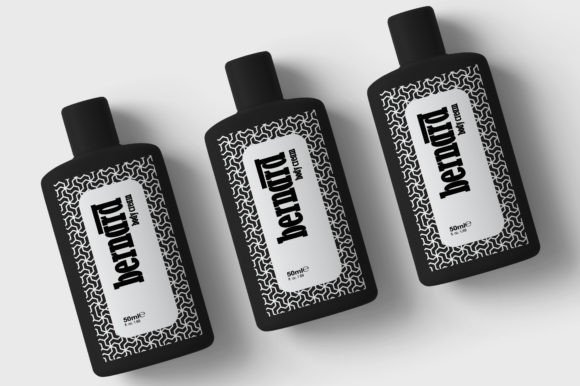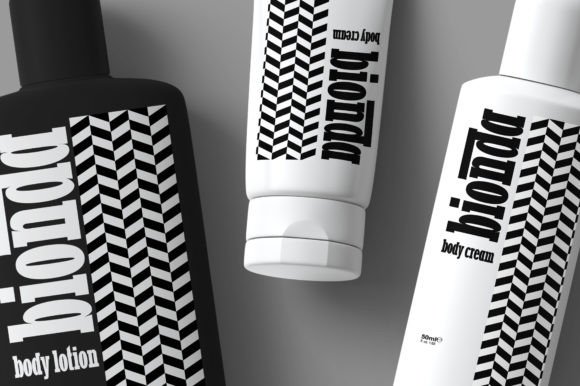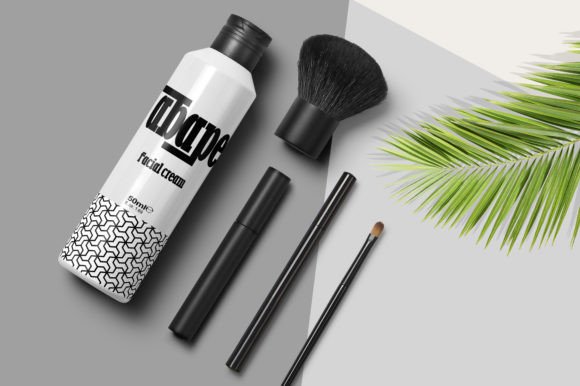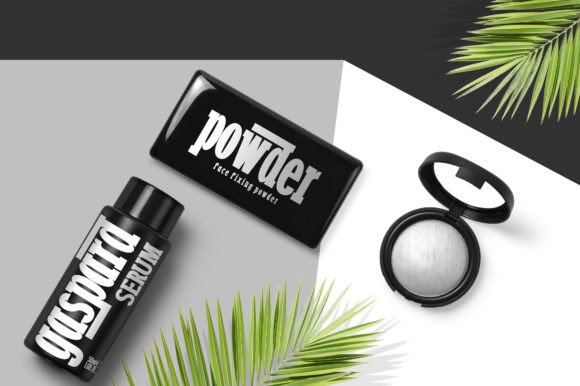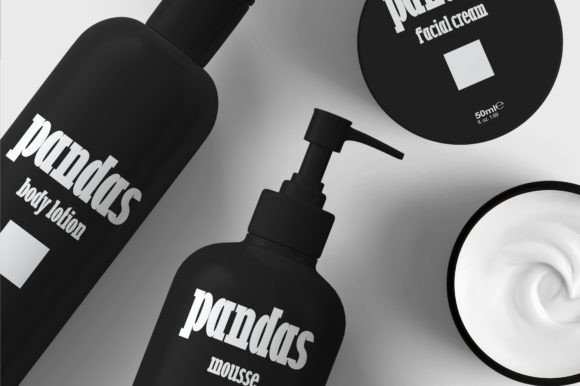
Bernard
Bernard: A Wonderful Compressed Slab Serif Font
Bernard is a wonderful compressed and condensed slab serif typeface that bridges vintage and modern design styles. This versatile font brings value to various creative applications, from packaging design to social media posts.
Key Features of Bernard
• Compressed Design: Offers space-efficient letterforms.
• Versatile Style: Works for both vintage and modern themes.
• Creative Value: Enhances design projects.
• Dynamic Character: Brings designs to life.
Best Uses for Bernard
Thanks to its versatile characteristics, Bernard works especially well for:
When using Bernard in your designs, keep these tips in mind:
• Try it for headlines or display text to showcase its compressed style.
• Use it across different themes from vintage to modern.
• Let its versatility enhance creative projects.
• Take advantage of its space-efficient design.
To sum up, Bernard is an excellent choice for designers seeking a wonderful compressed slab serif font. Its versatility makes it perfect for various creative projects. Whether you’re designing packaging, creating labels, or developing social media content, Bernard offers the perfect blend of vintage charm and modern appeal.
Furthermore, Bernard’s distinctive design allows it to shine in contexts where both efficiency and style are key. For instance, from alcohol packaging to creative projects, this font can bring your designs to life with its unique character. Also, its compressed yet versatile appearance works particularly well in designs that aim to make a memorable impact.
In conclusion, Bernard truly captures the essence of versatile design in compressed slab serif typography. Its ability to enhance various applications shows how well it can serve creative needs. Therefore, for those wanting to add significant value to their work, Bernard can transform any design with its distinctive style. Ultimately, it’s perfect for designers aiming to make their creative ideas come alive across a wide range of projects.